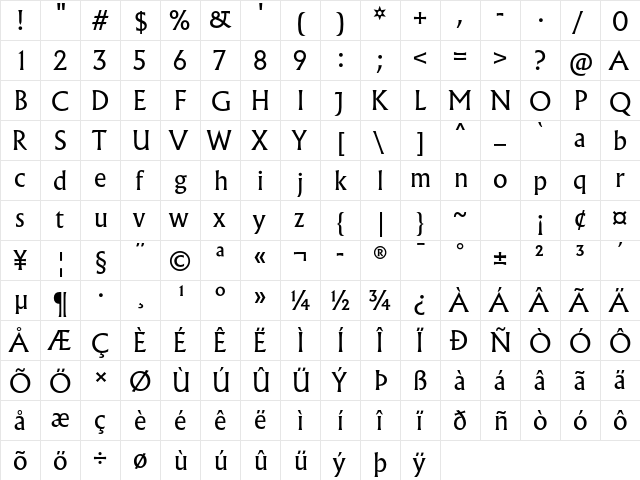
Albertus Nova Light Regular
Foundry: Monotype Imaging Inc.
Designer: Toshi Omagari
Design Context for Albertus Nova Light
Albertus Nova Light is a composed and adaptable typeface that performs quietly and consistently across a wide range of design contexts. Its slender proportions lend an understated elegance to any composition.